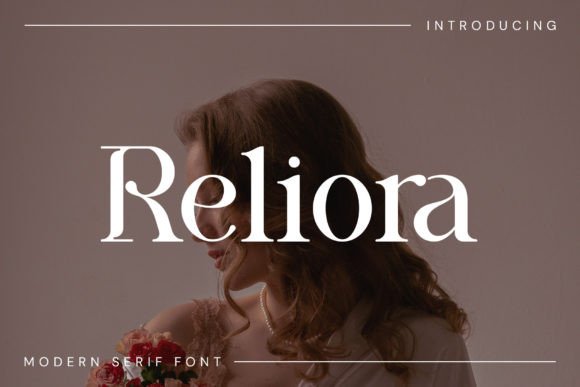
Introducing Reliora Font, the epitome of elegance and style in the world of serif fonts. Created by Slide Shoot, this font family is a must-have for any graphics design enthusiast. With its balanced and smooth characteristics, Reliora Serif stands out as the go-to choice for those seeking a touch of sophistication in their designs.
One of the standout features of Reliora Serif is its beautiful and captivating character. From invitation card designs to company logos, movie titles to business cards, this font seamlessly blends with various design elements, elevating them to new heights of visual appeal. Its versatility allows it to complement book titles, brand names, and an array of other creative projects effortlessly.
What sets Reliora Serif apart is its subtle elegance, exuding a sense of refinement and class. The font's stylish alternations and ligatures add a unique touch to any project, making it the perfect partner for your creative endeavors. With its PUA encoding, accessing the incredible range of glyphs and ligatures is a breeze, allowing you to unlock endless design possibilities.
Immerse yourself in the world of Reliora Serif and experience the power of its captivating charm. Let your creativity soar as you explore the vast potential this font offers. Whether you're a professional designer or a passionate enthusiast, Reliora Serif will become your go-to font for adding that extra touch of elegance and style to your work.